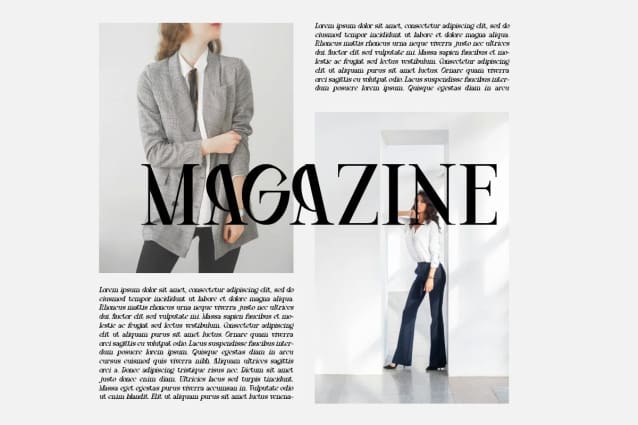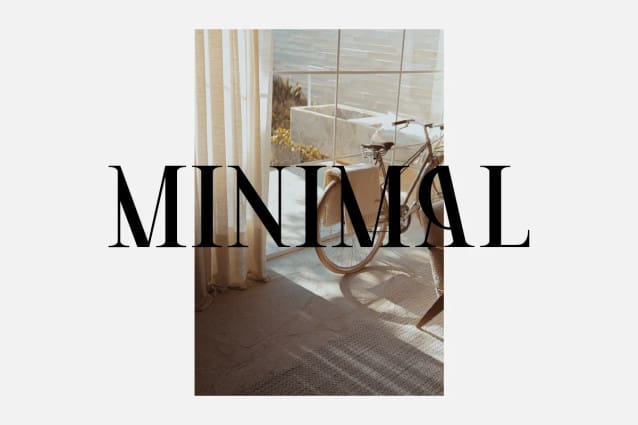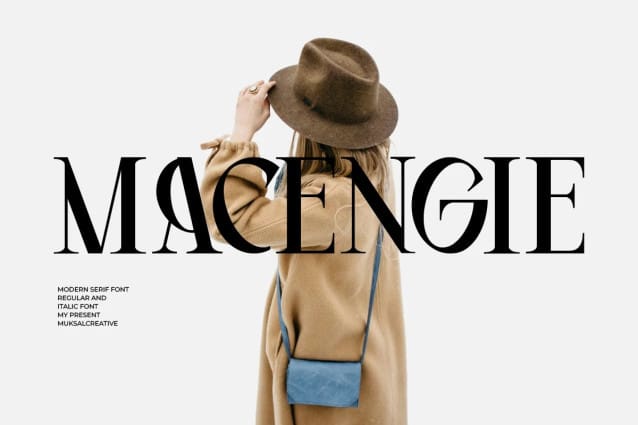
Macengie Font
Macengie Font is a modern Serif font that exudes sophistication and versatility. With both regular and italic styles, this font offers a dynamic range of options for designers.
The sleek and elegant serifs of Macengie add a touch of refinement to any design project, making it perfect for logo branding initiatives that demand a contemporary aesthetic. Whether used in digital or print media, Macengie effortlessly adapts to various design contexts, enhancing the visual appeal of any project it graces.